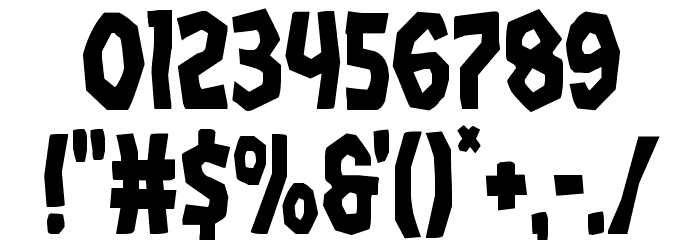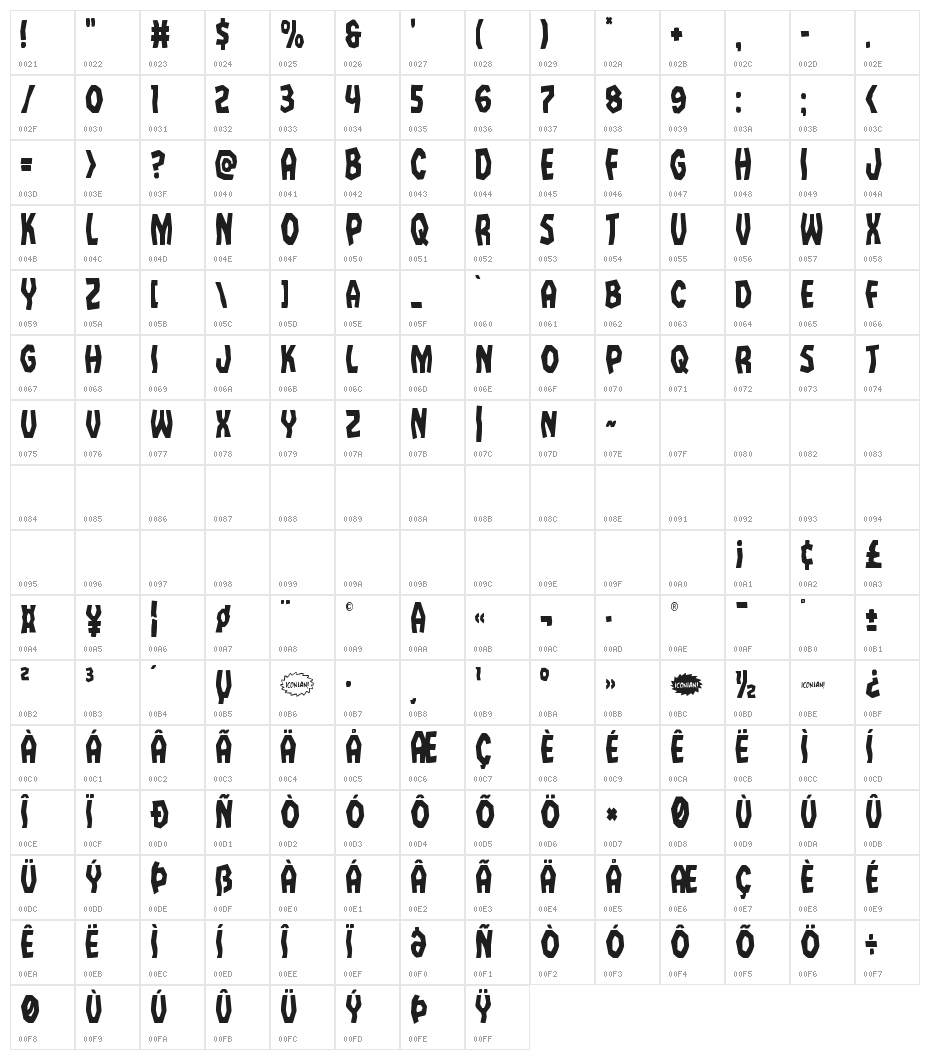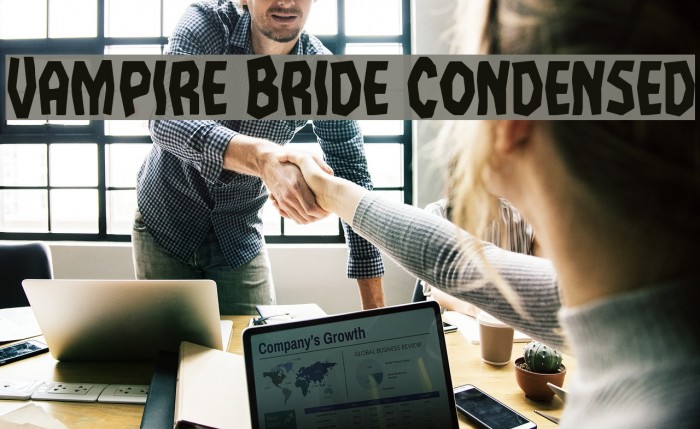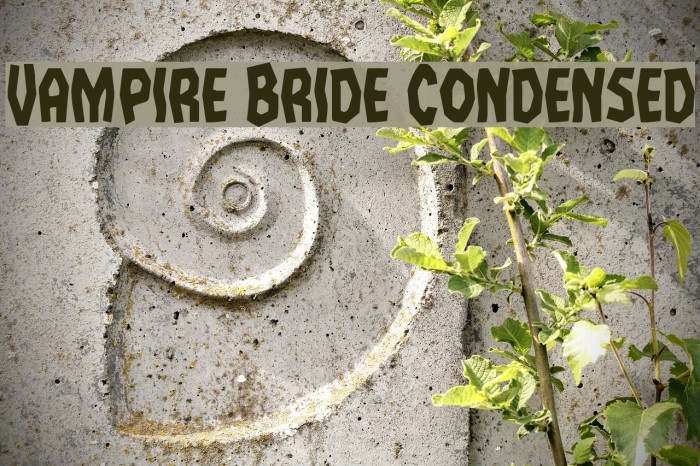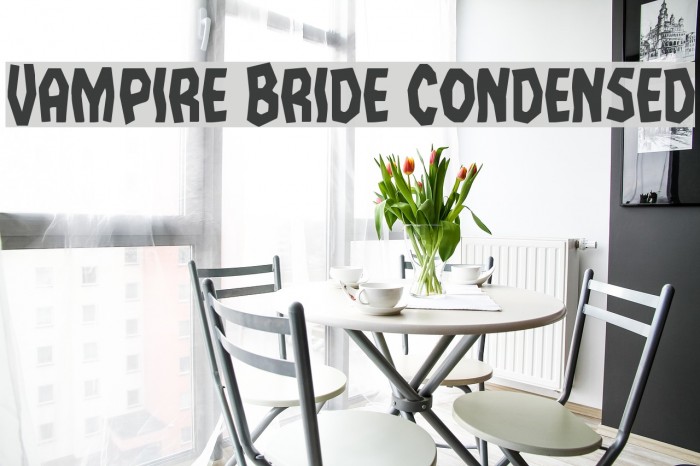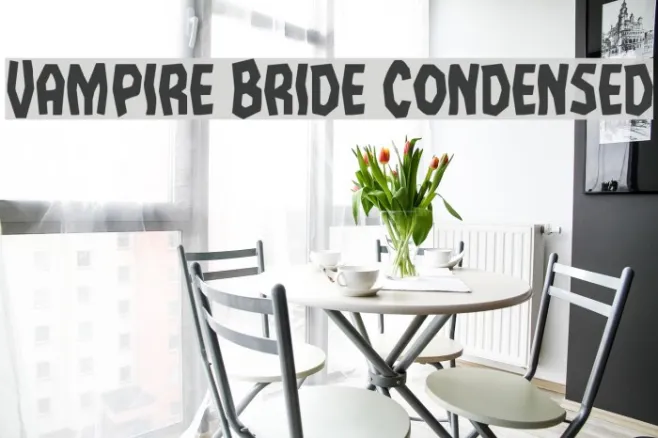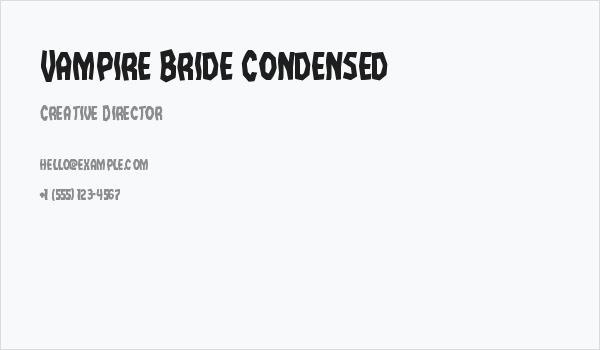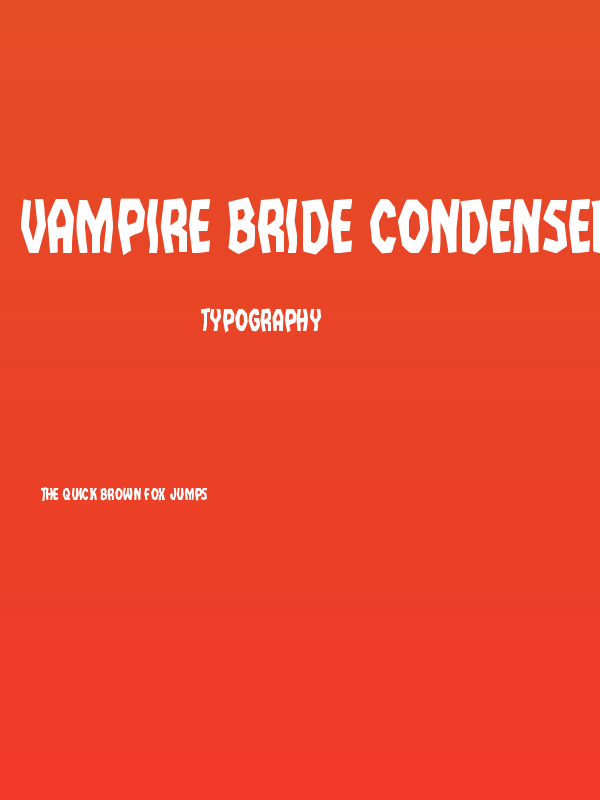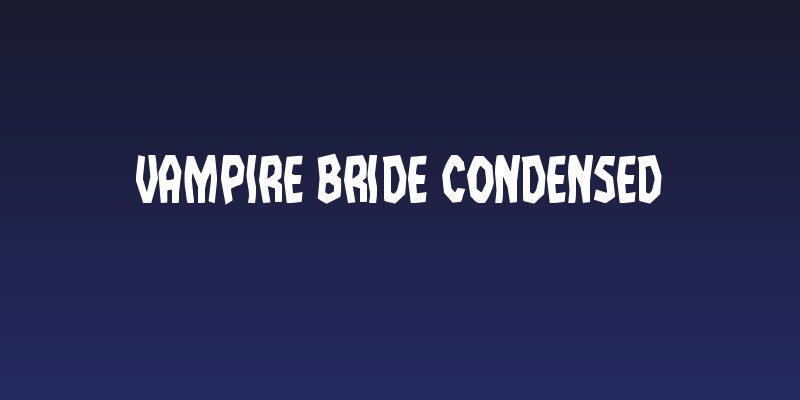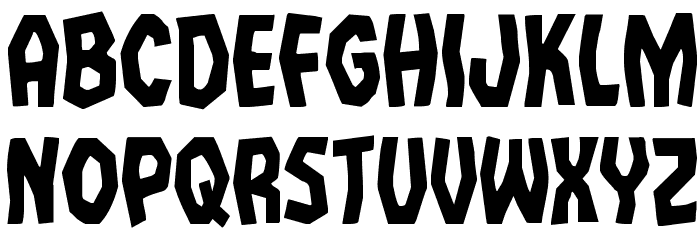
Vampire Bride Condensed Font
Vampire Bride Condensed Description
This font features a bold and condensed style with a distinct, edgy appearance. The characters have sharp, angular edges and a slightly irregular form, giving it a unique, hand-crafted look. The uppercase and lowercase letters maintain a consistent height, contributing to its compact and dense appearance. The numbers and special characters follow the same stylistic cues, ensuring uniformity across all glyphs. This font's dramatic and bold design makes it suitable for attention-grabbing headlines and creative projects that require a strong visual impact.
| Proposed Projects | Ideal for horror-themed posters, Halloween invitations, edgy branding, and graphic novels. |